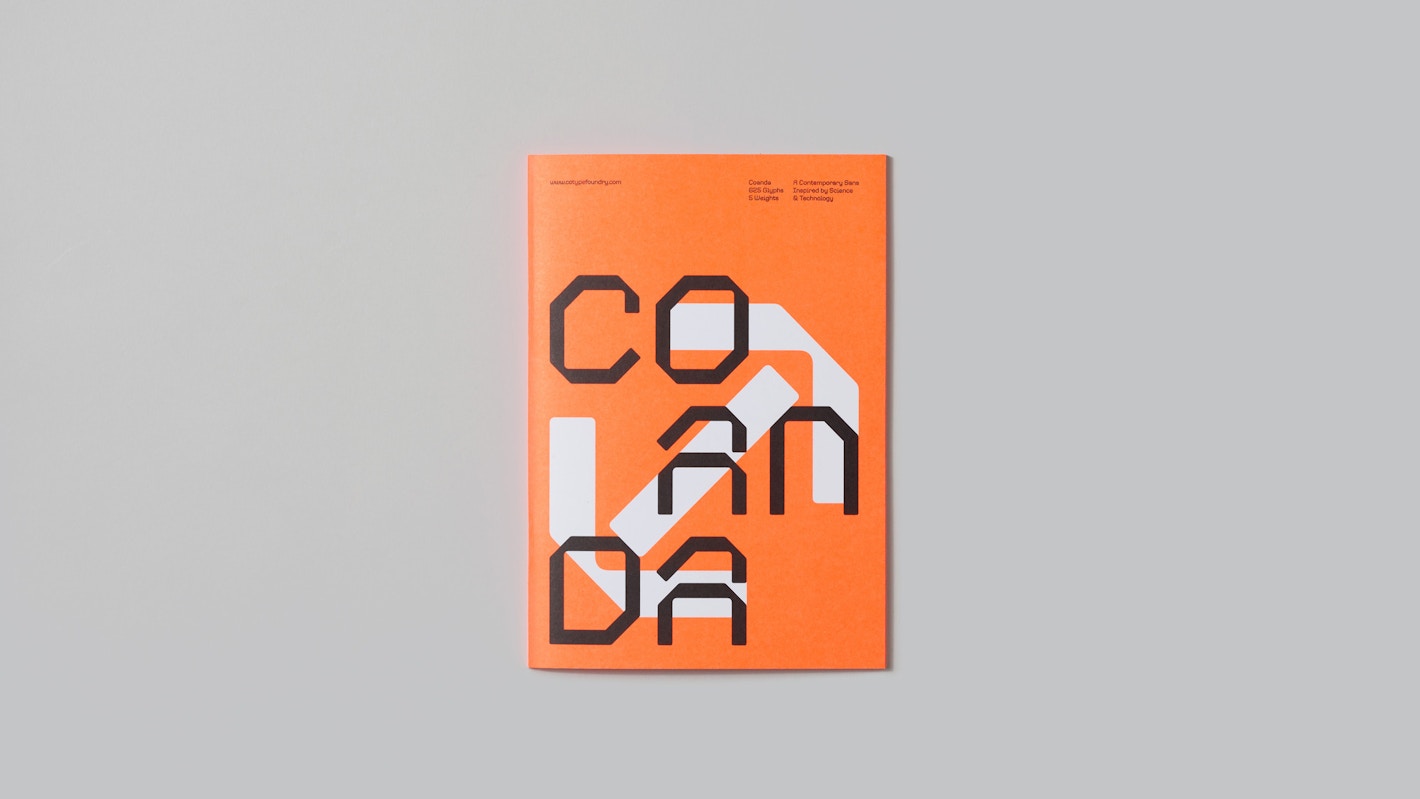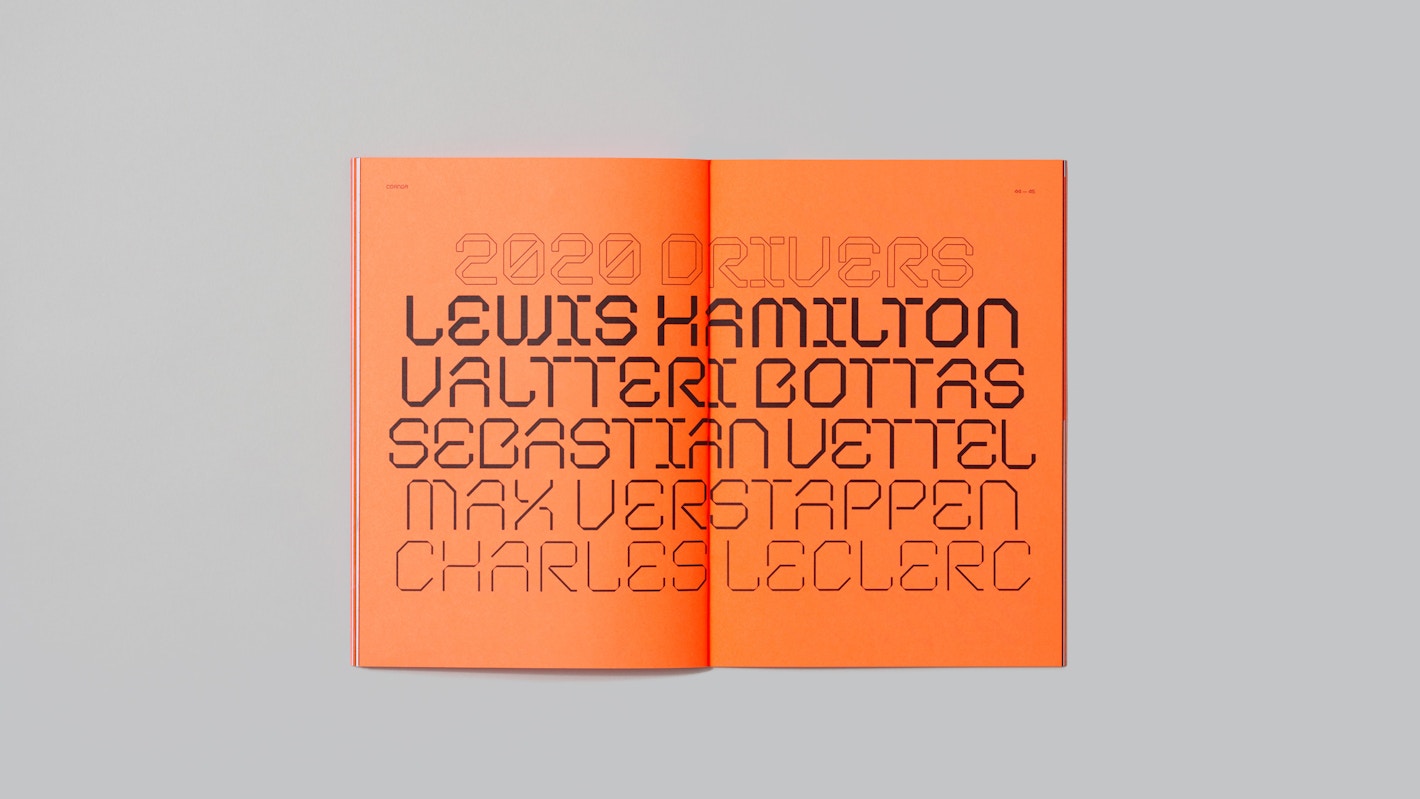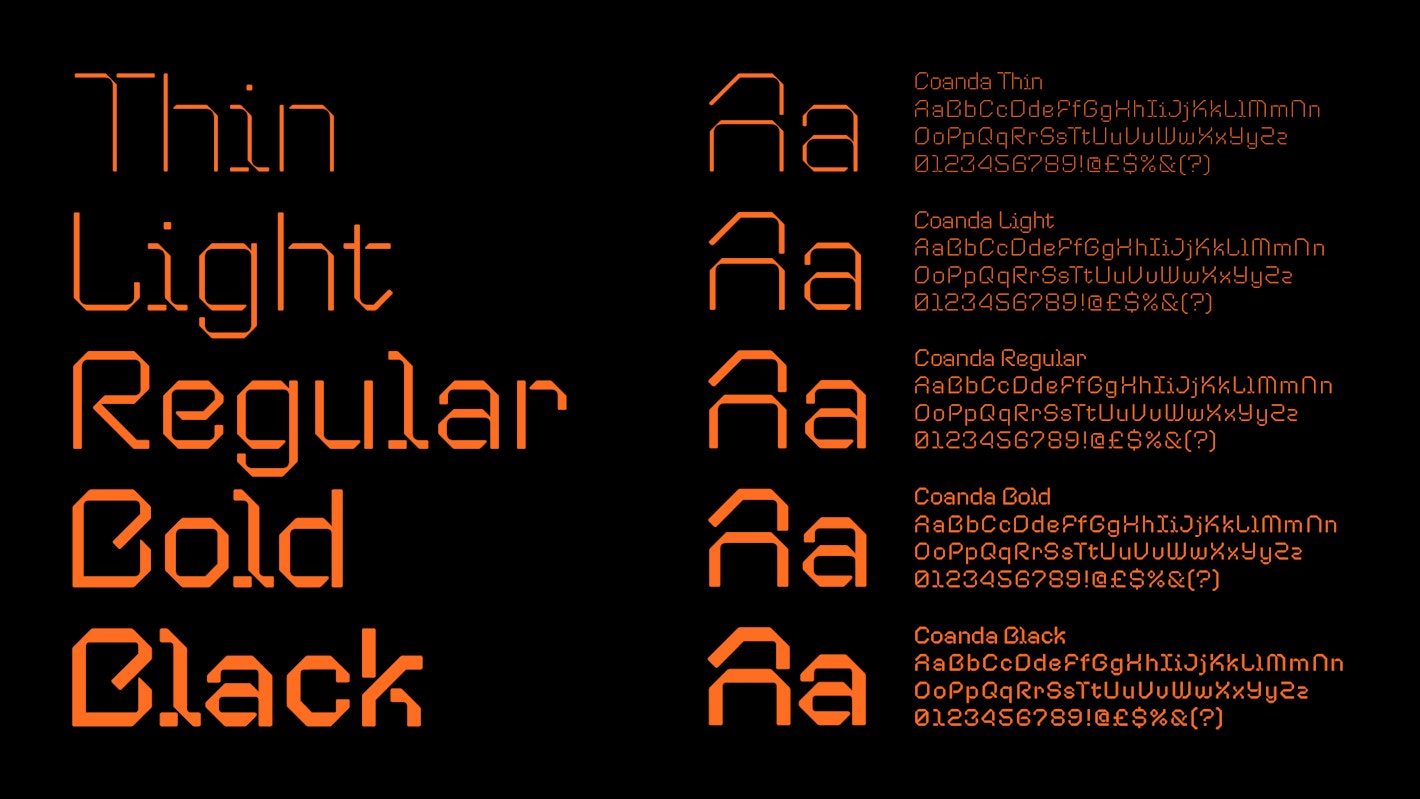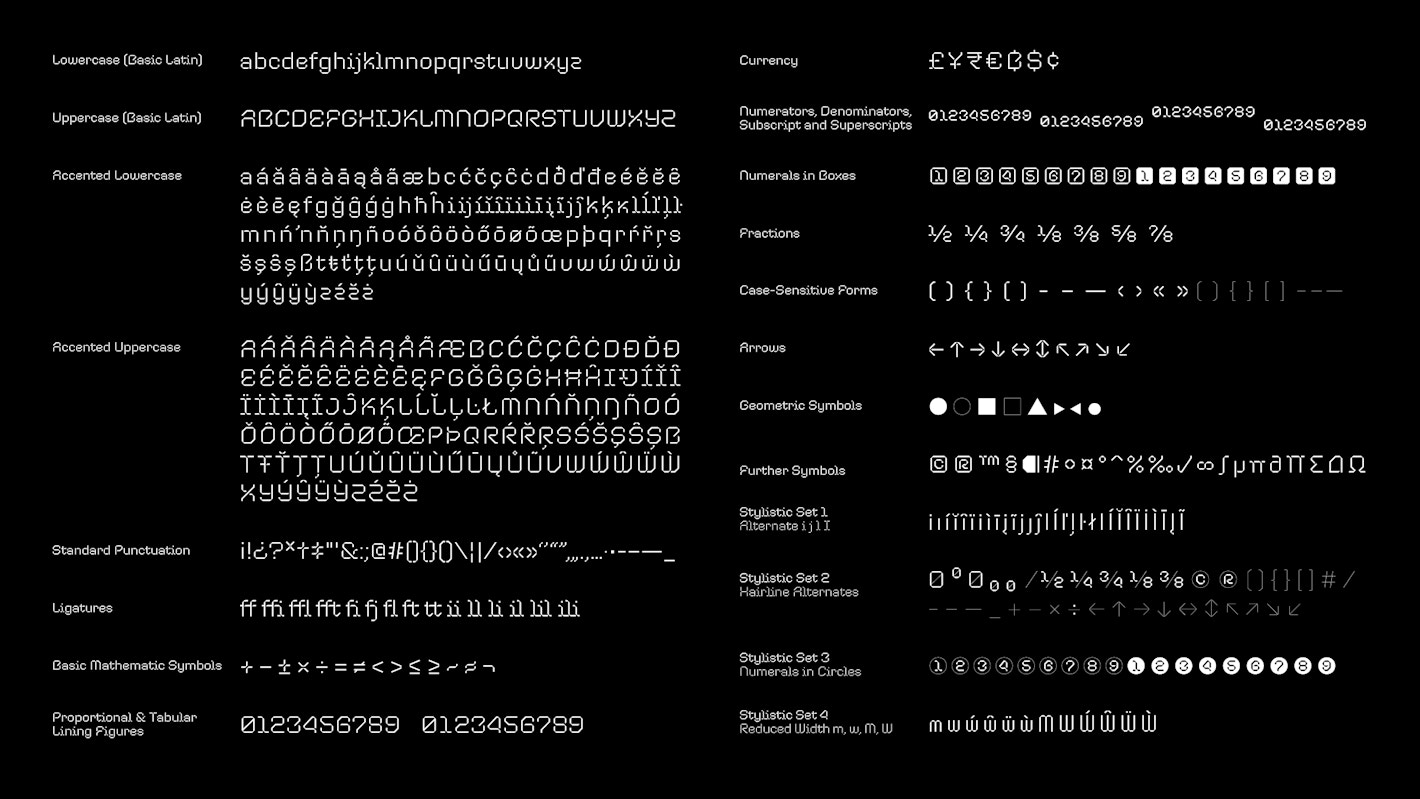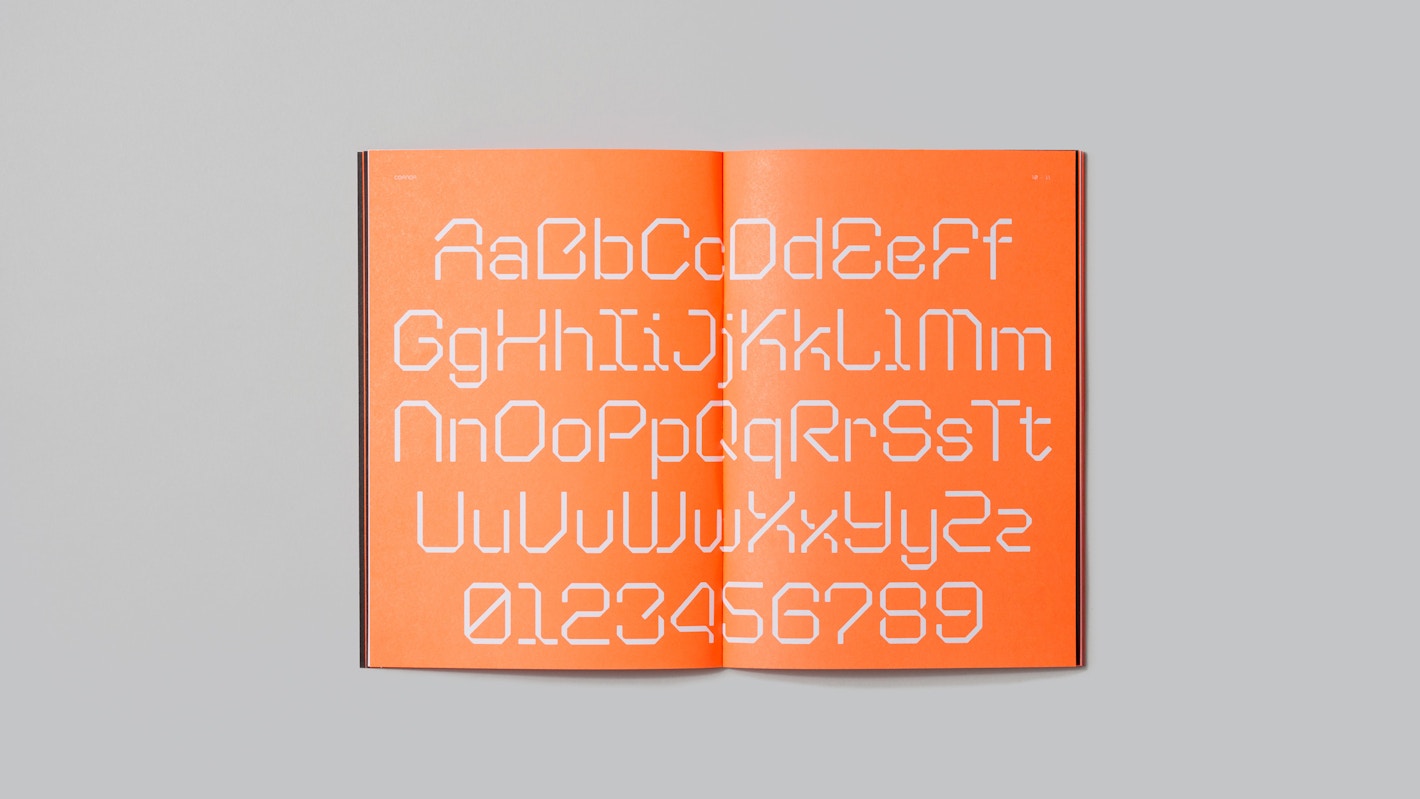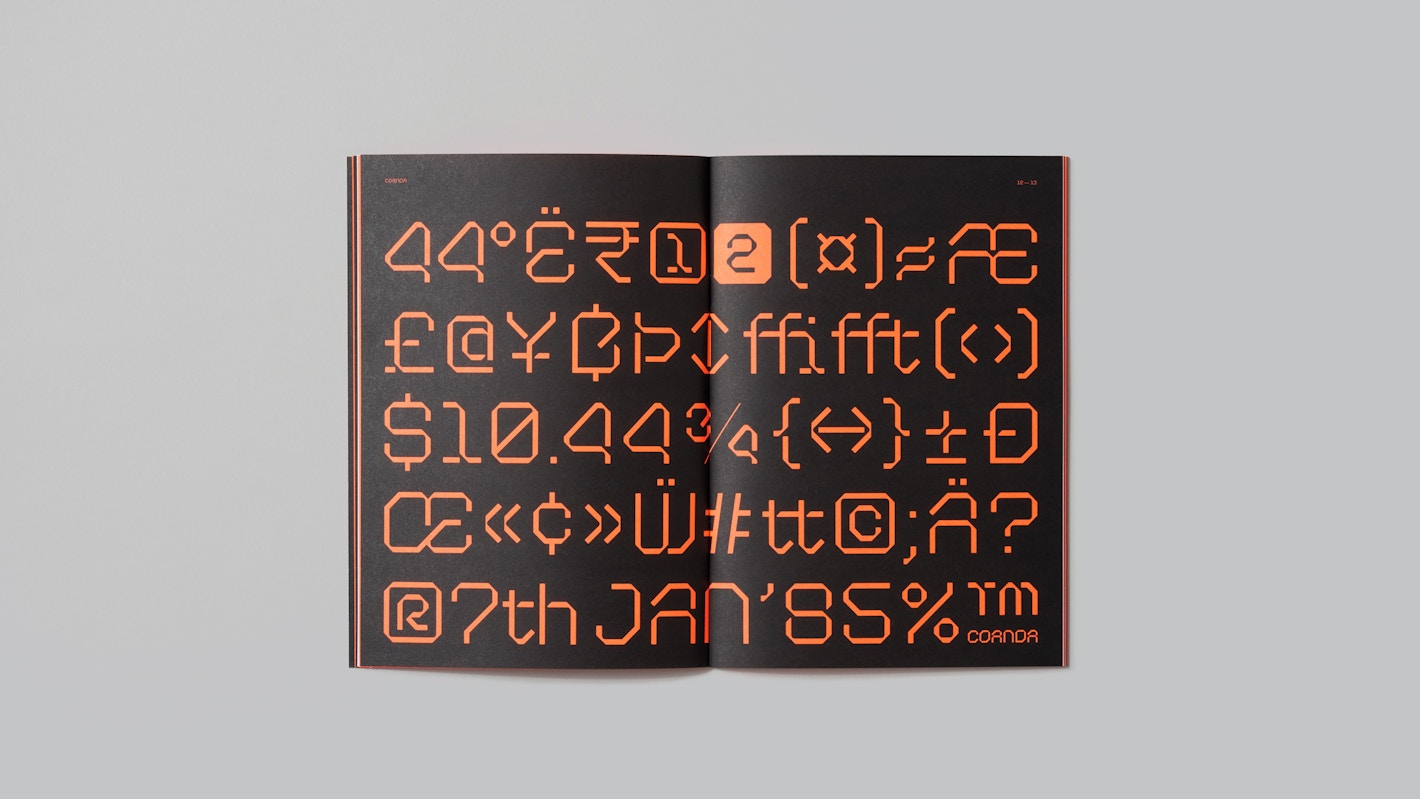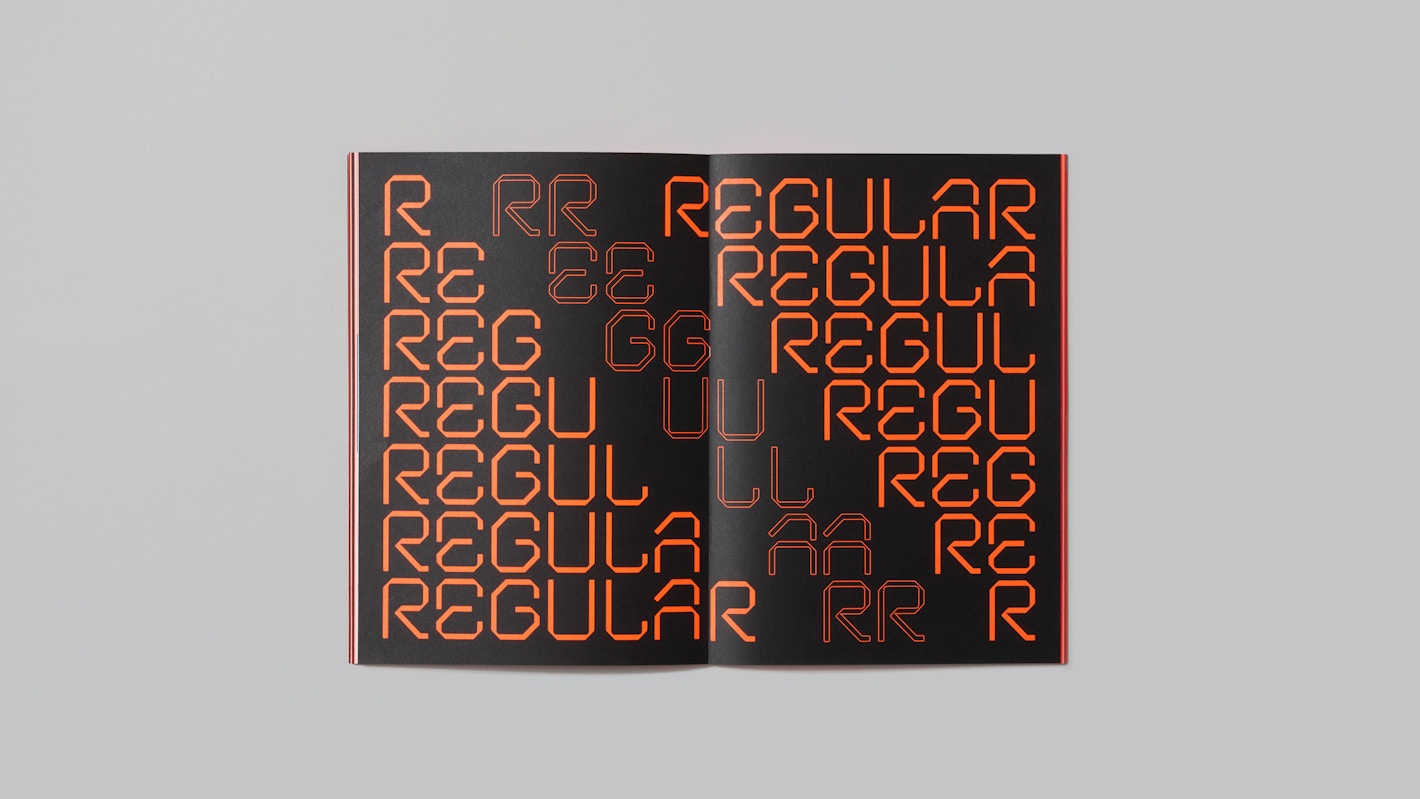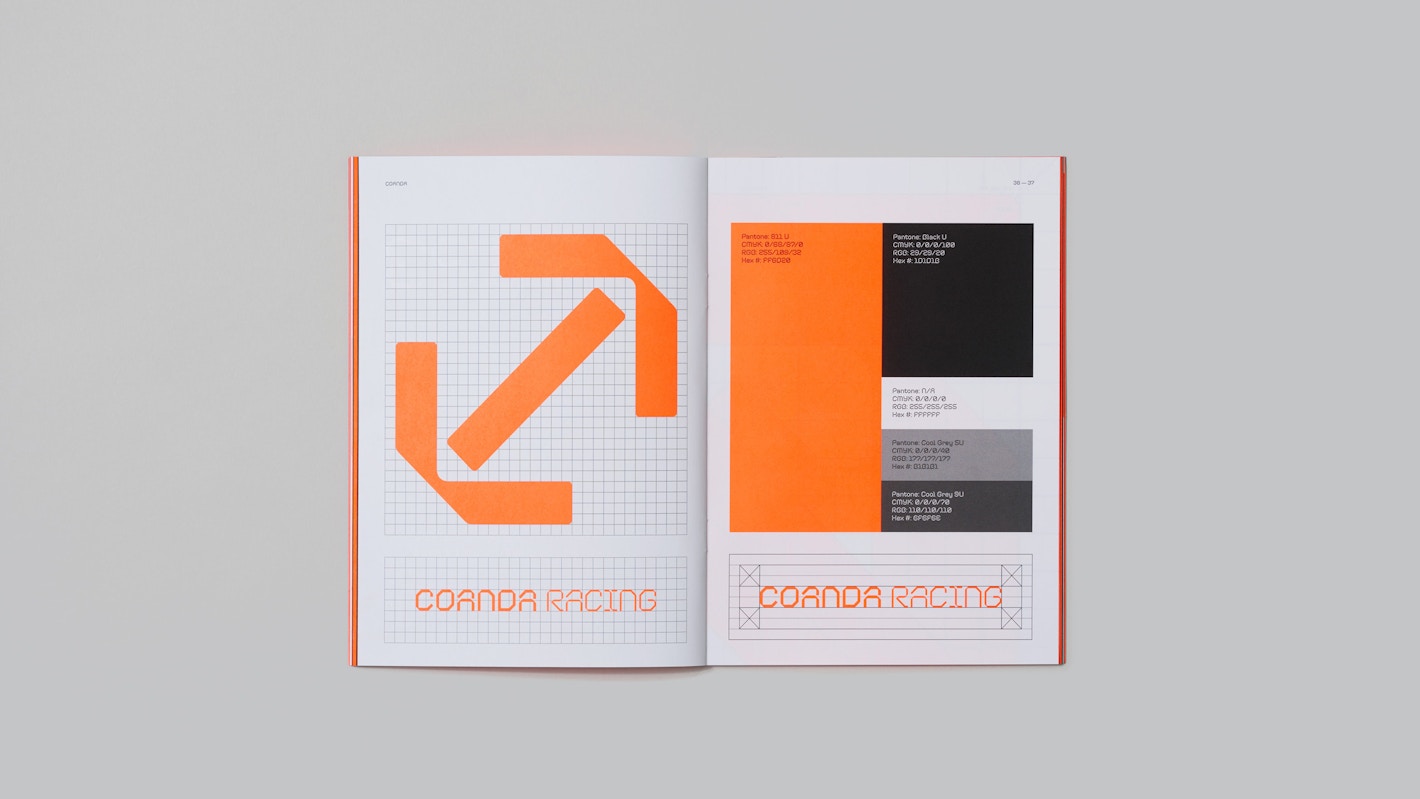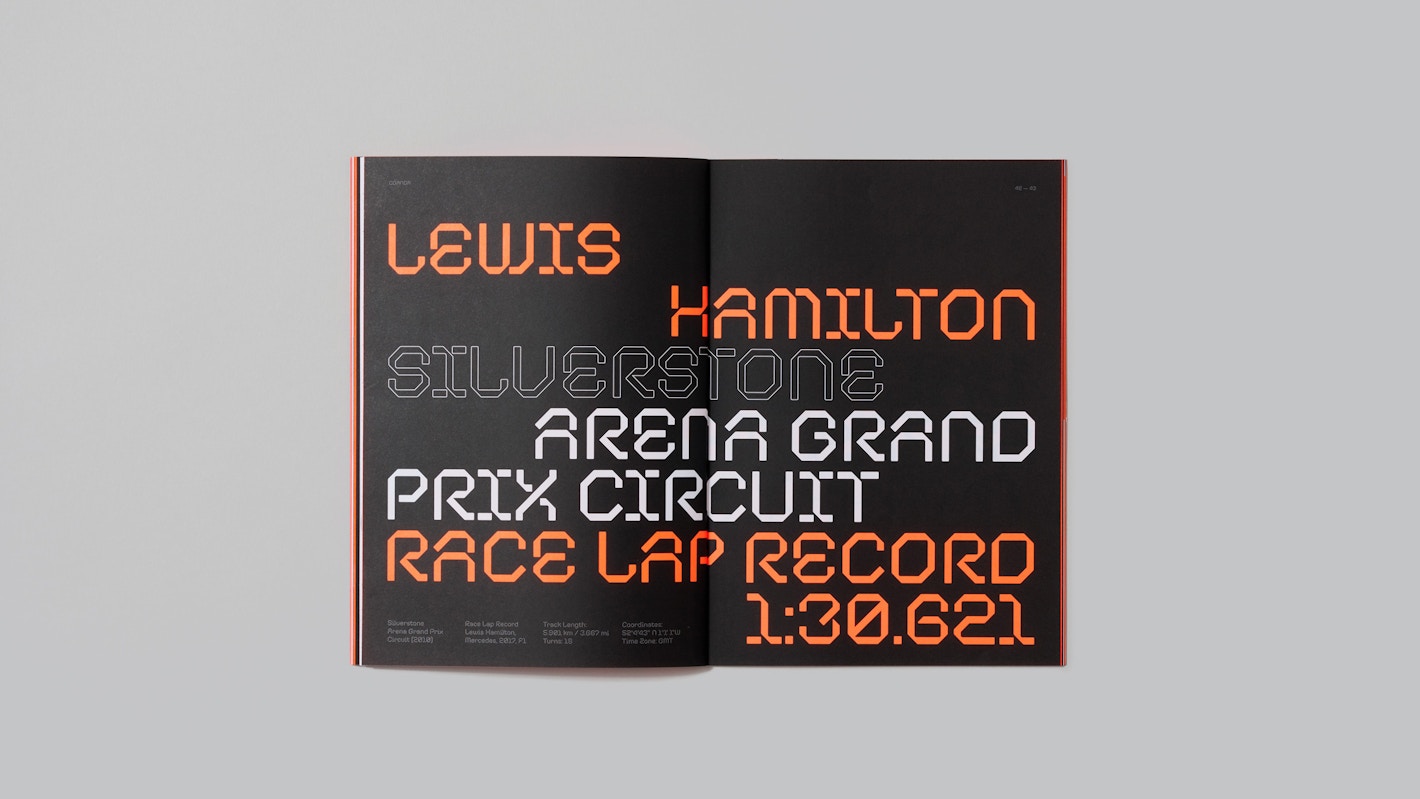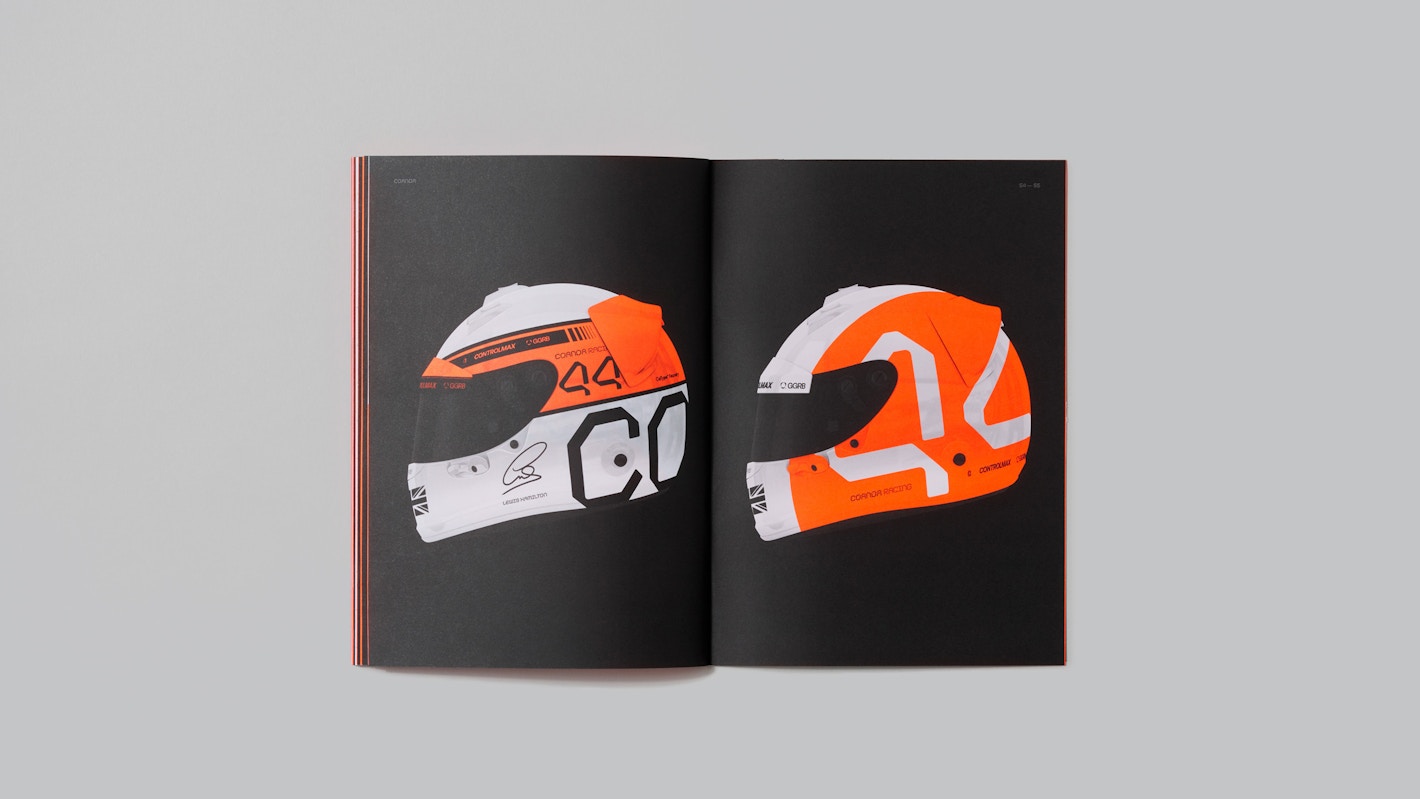
Coanda is a forward-looking typeface rooted in the bold modular ideals of the 20th century. Inspired by the visionary designs of Wim Crouwel and Mimmo Castellano, and the meticulous craftsmanship of The Designers Republic, Coanda combines a technological aesthetic with subtle human touches for a truly unique typographic experience.
While its letterforms and corner components adhere to strict modularity, Coanda occasionally bends the rules to prioritize legibility through optical adjustments. This balance of precision and approachability makes Coanda 95% technological and 5% human.
Ideal for creating distinctive logotypes, Coanda is available in five weights – from Light to Black – ensuring flexibility for a variety of design needs. Its comprehensive character set supports both Eastern and Western European diacritics, along with mathematical symbols and fractions. Four stylistic sets – including hairline alternates – allow designers to customize Coanda for various scales and creative uses, while retaining its bold and futuristic aesthetic.